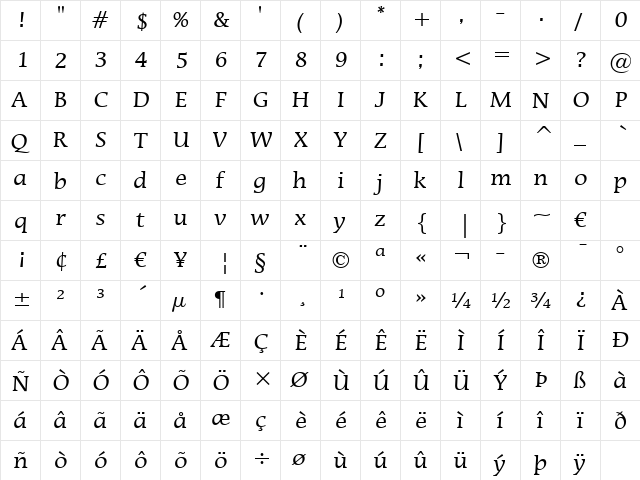
Mirarae BT Roman
Design Context for Mirarae BT Typeface
Mirarae BT offers clean, dependable letterforms without strong stylistic allegiance, making it a practical choice for designers who need flexibility.